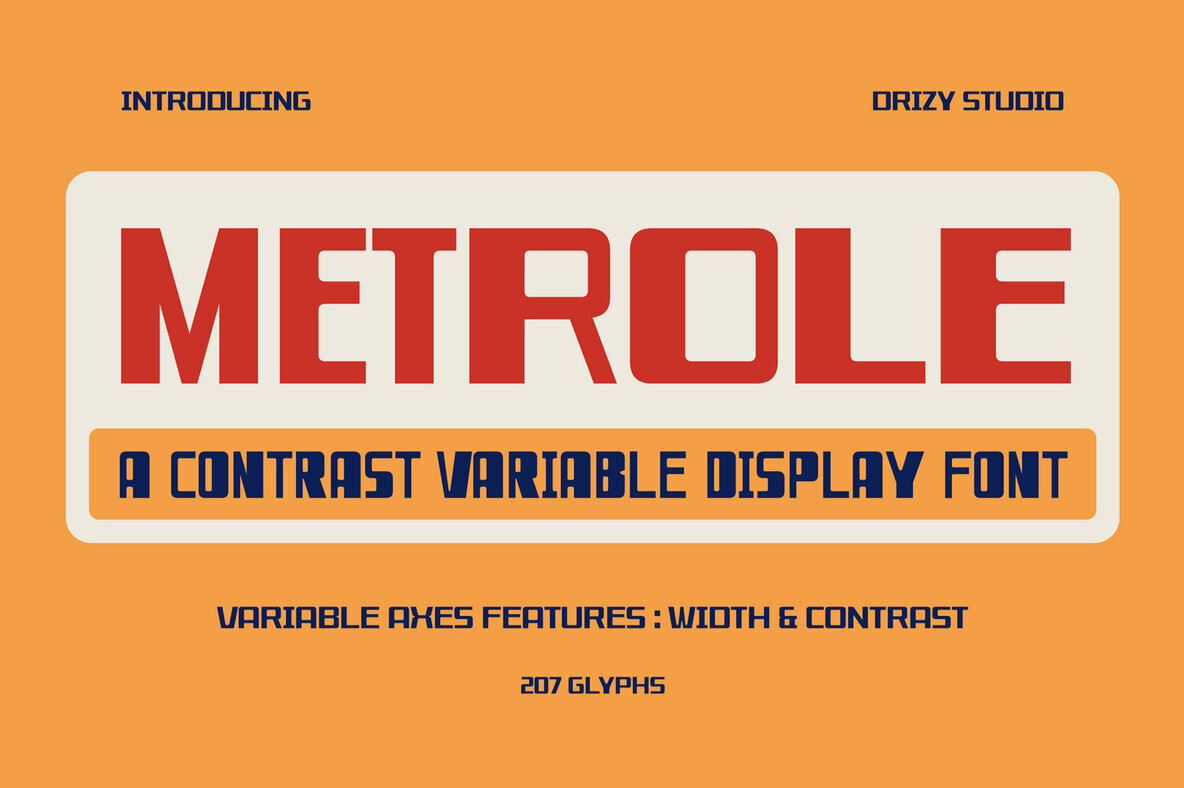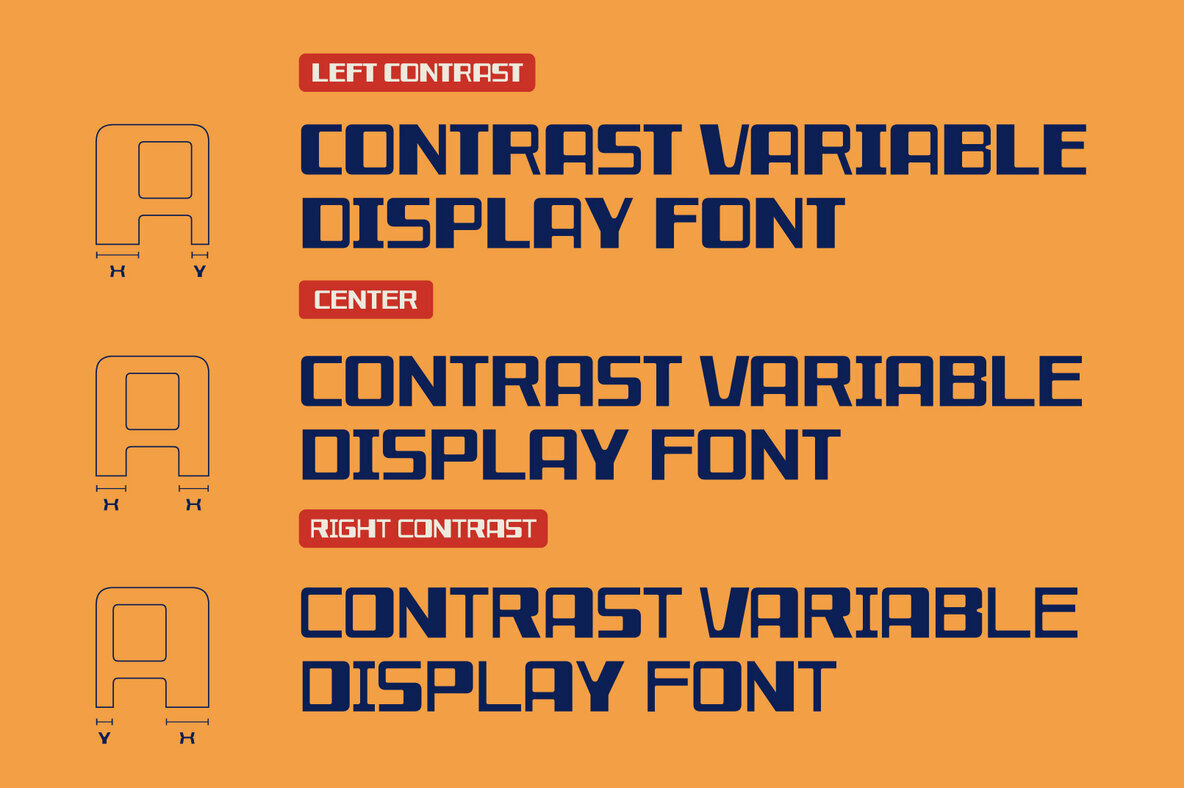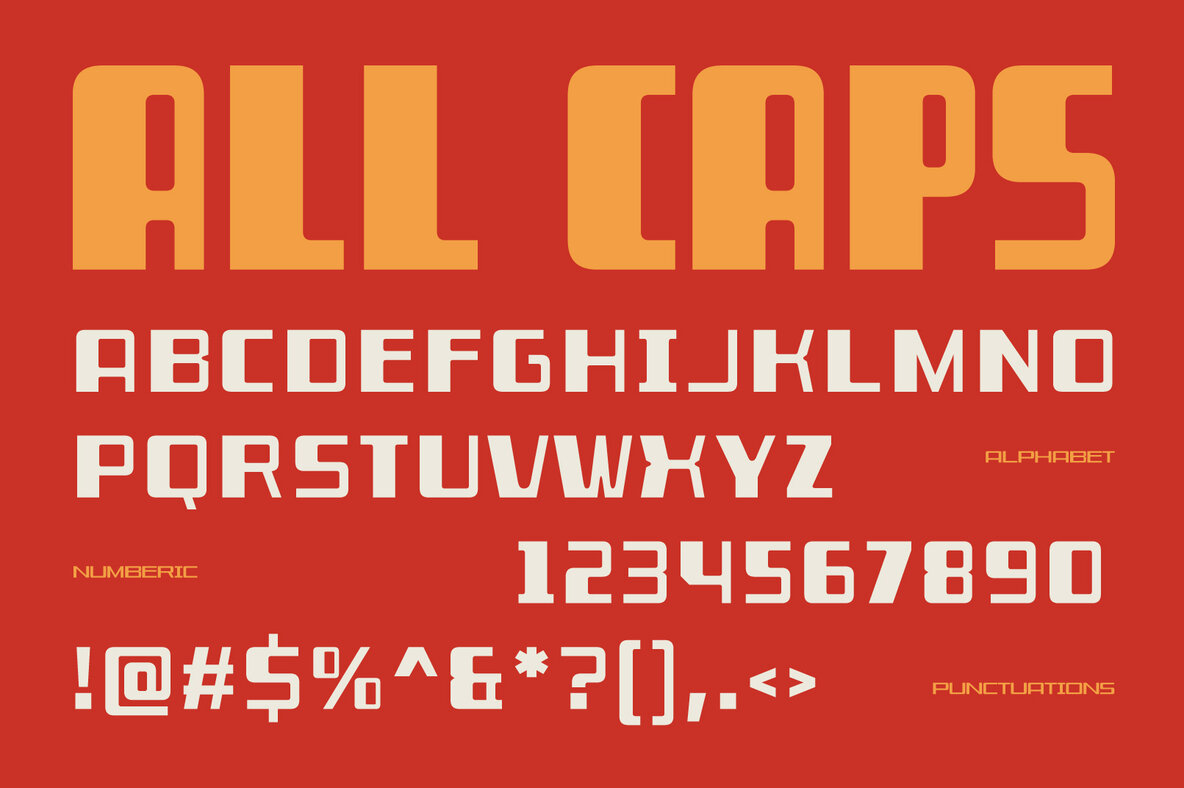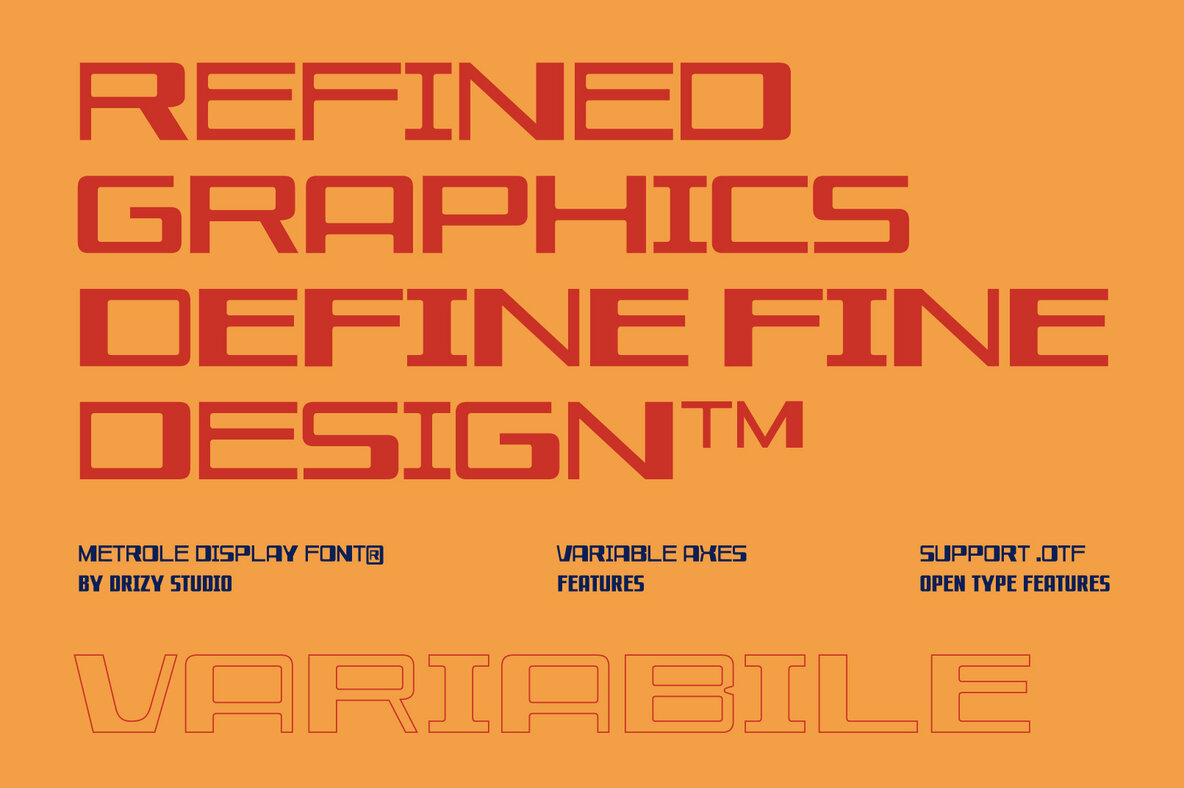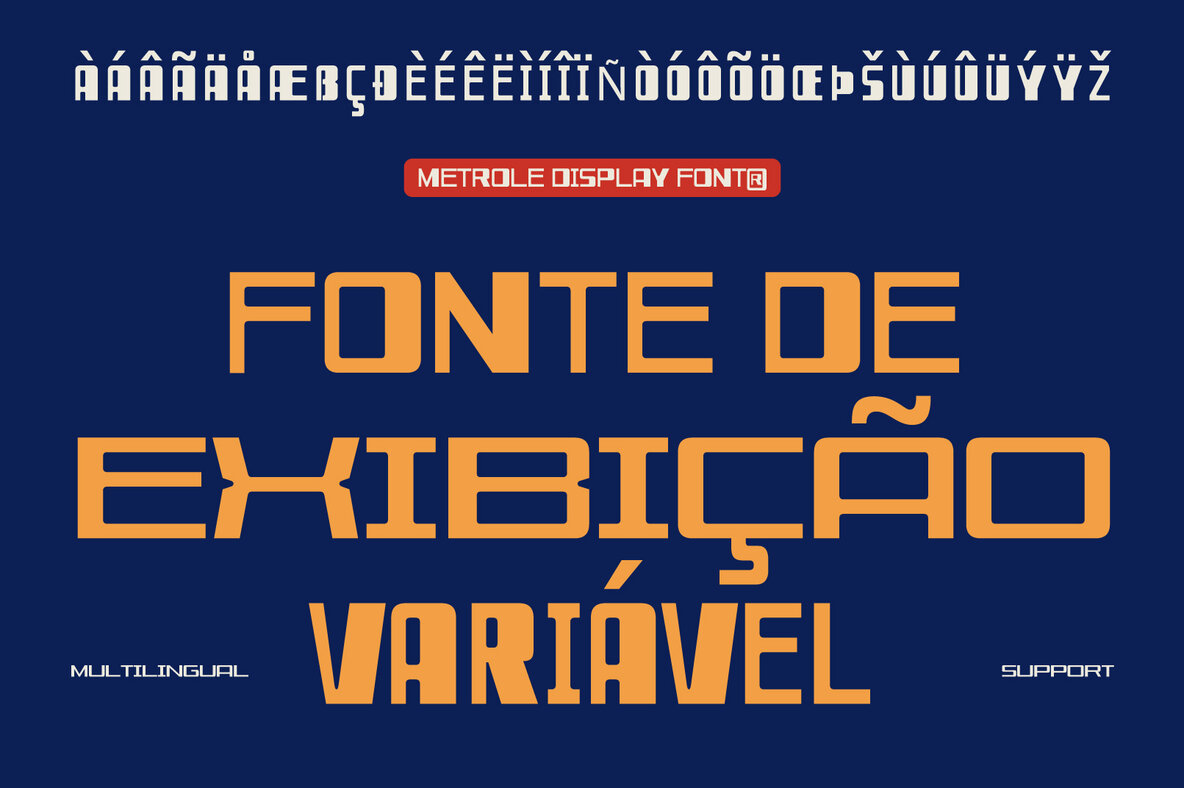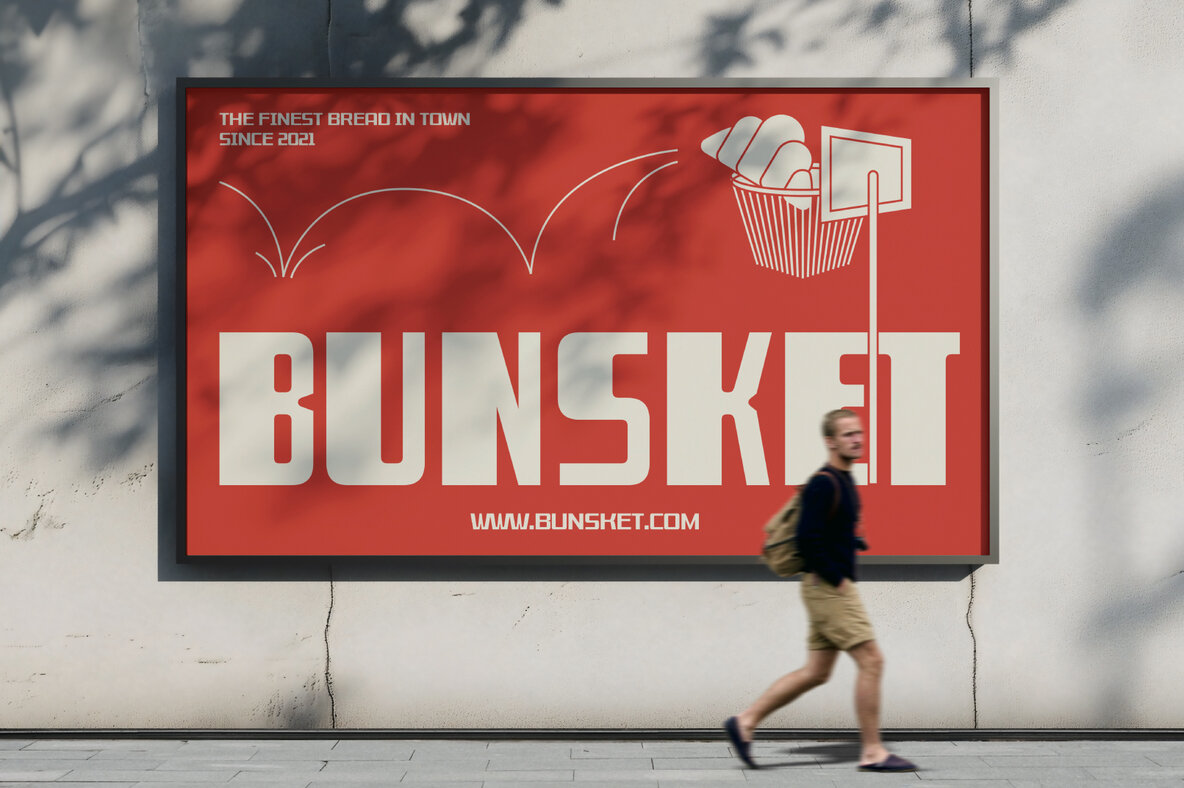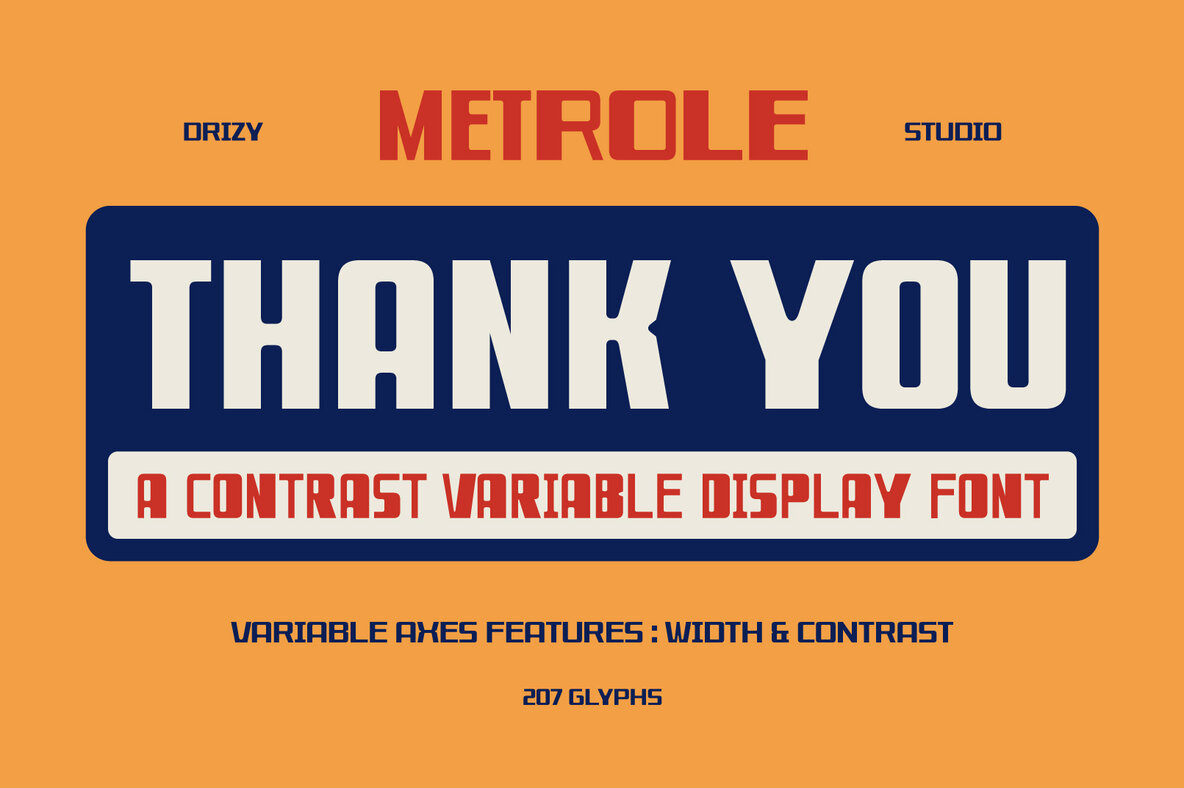
Metrole Font
Metrole – Contrast Variable Display is a striking fusion of modern elegance and clean simplicity. As part of the Modern Clean Sans Serif, this font boasts a sleek, contemporary design with a high-contrast aesthetic that exudes sophistication. Whether you’re aiming for a eye-catching statement or a refined, minimalist touch, Metrole delivers versatility with a stylish edge.